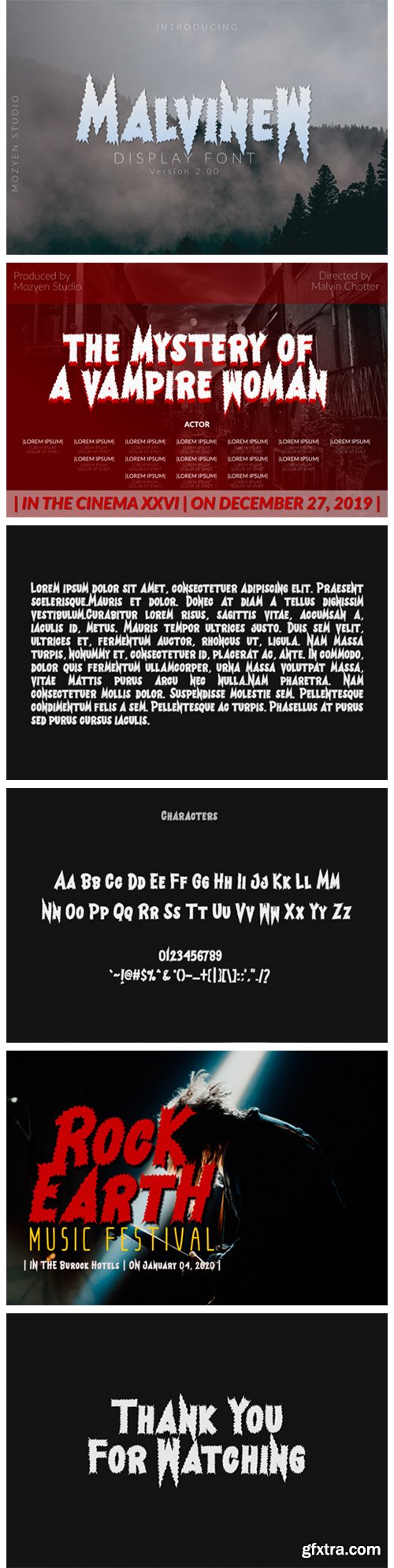
Malvinew 2.00 Font
Malvinew 2.00 is the new style of this stunning display font. Use it for any design project that requires a personalized appearance!